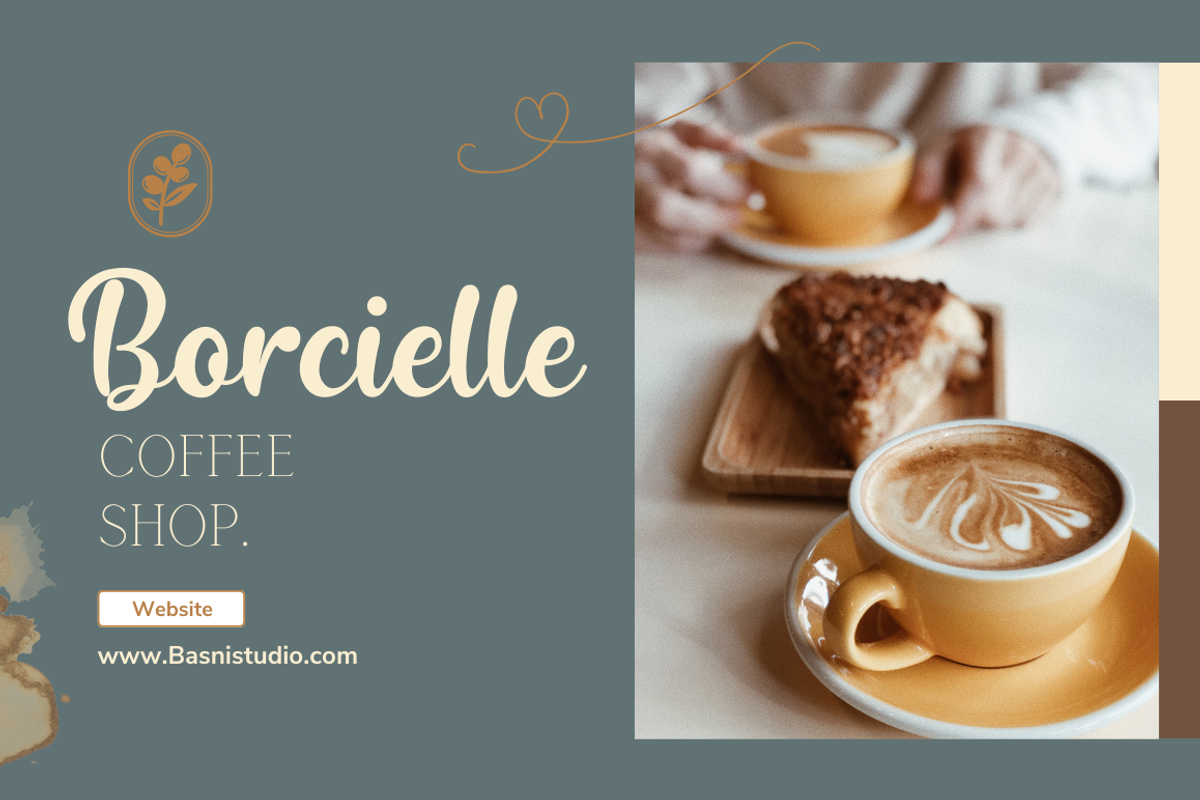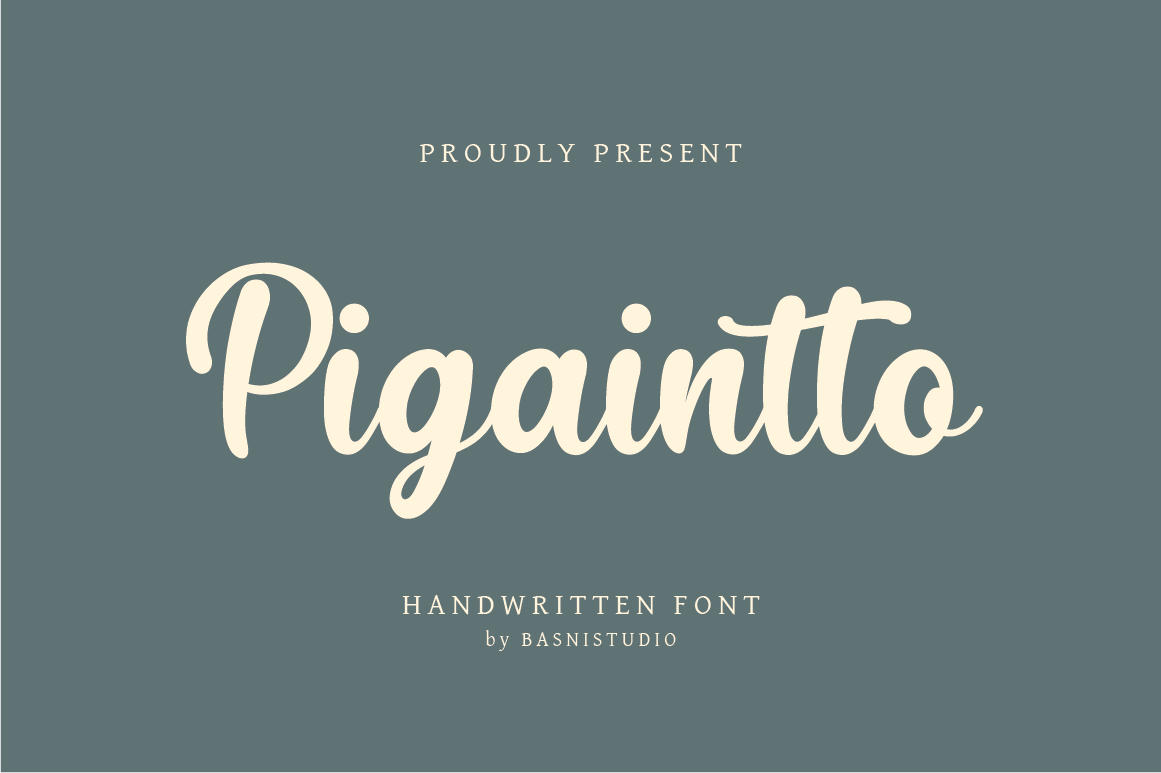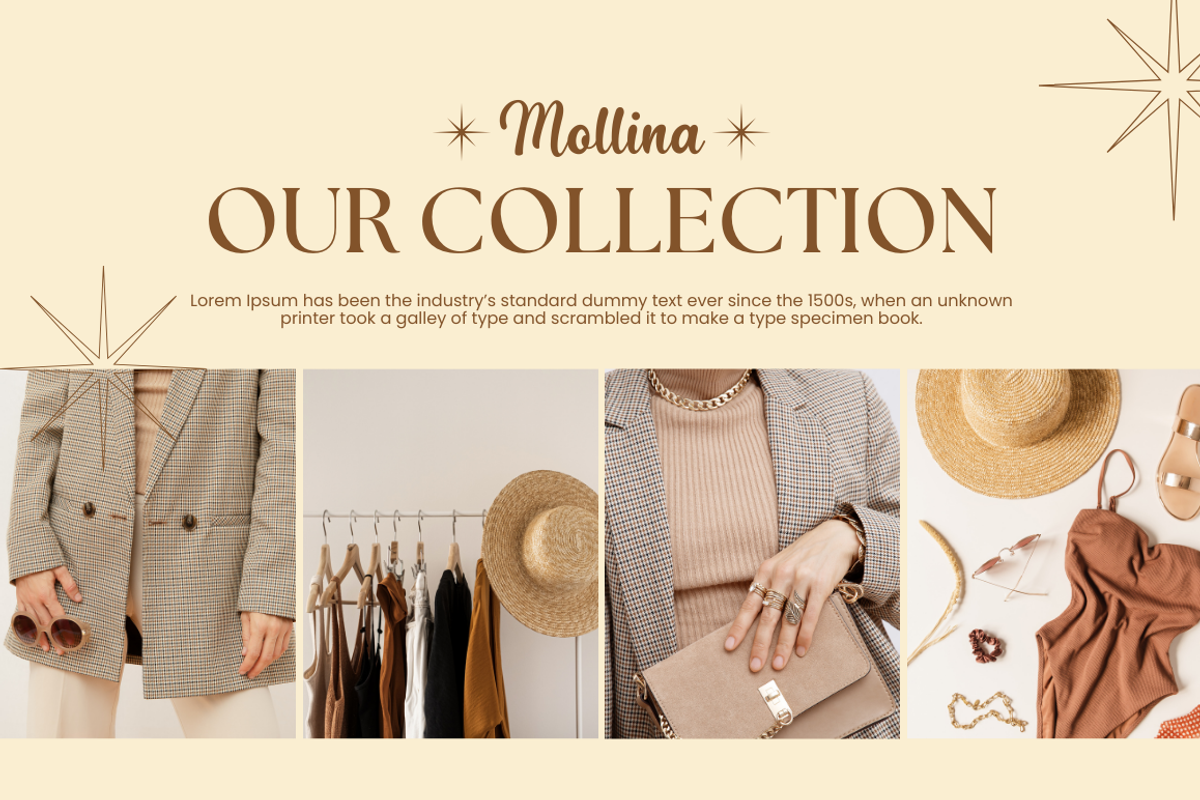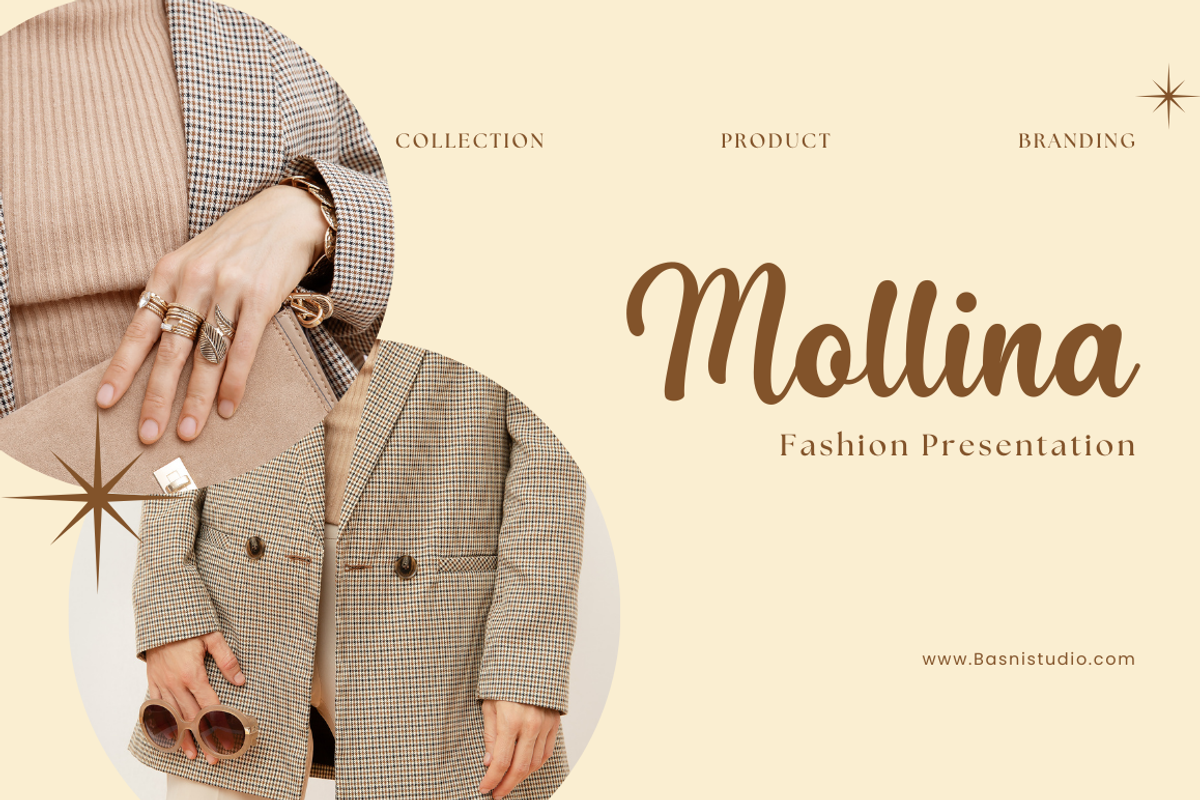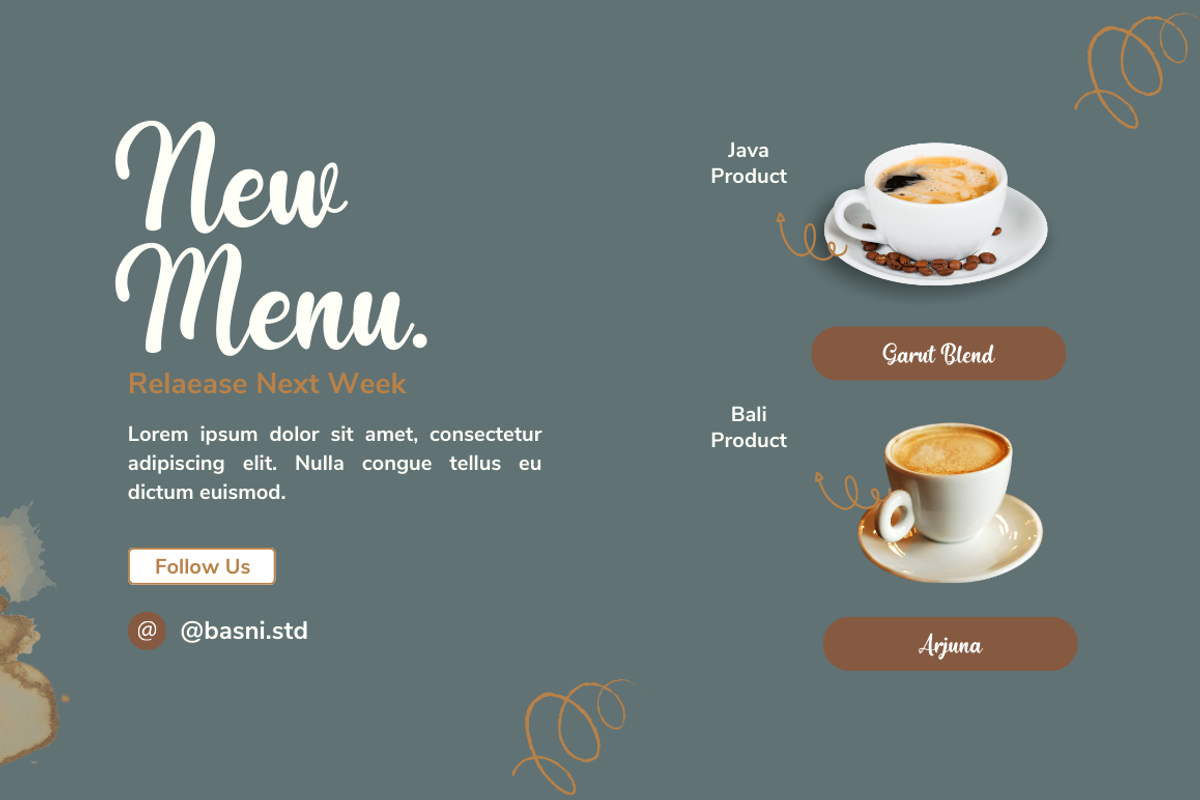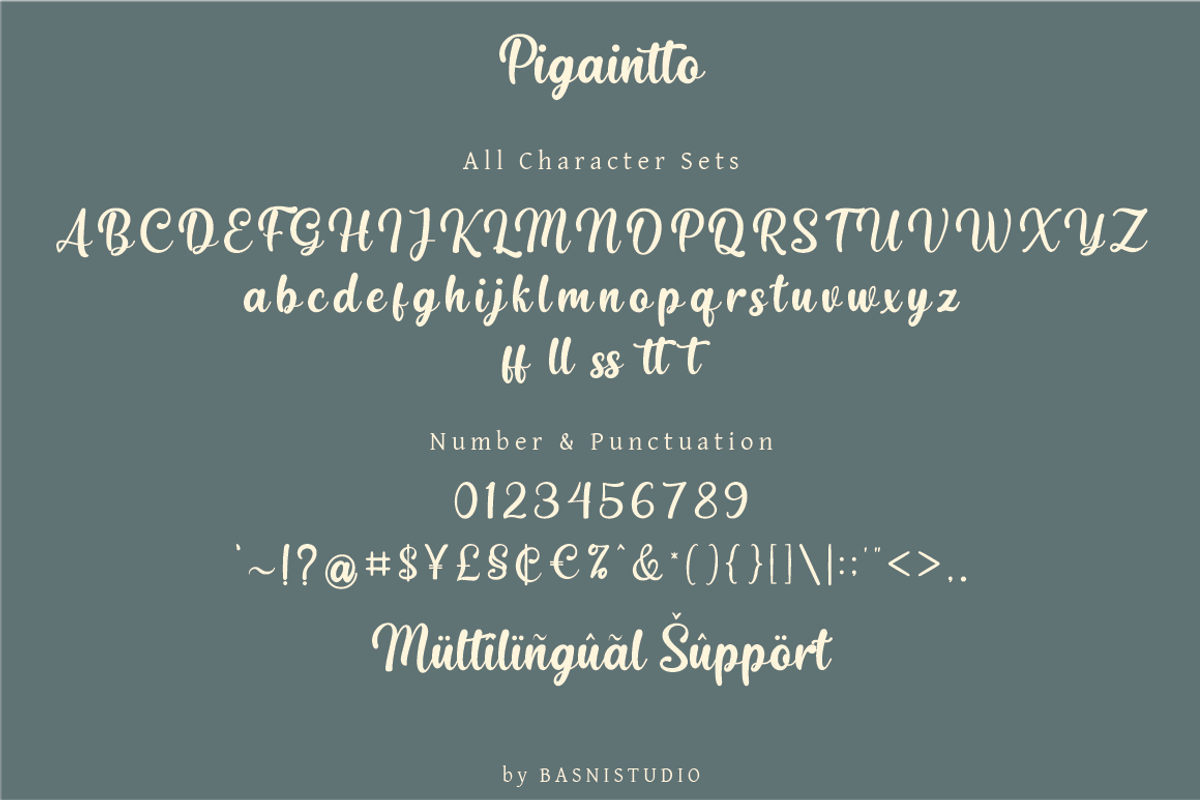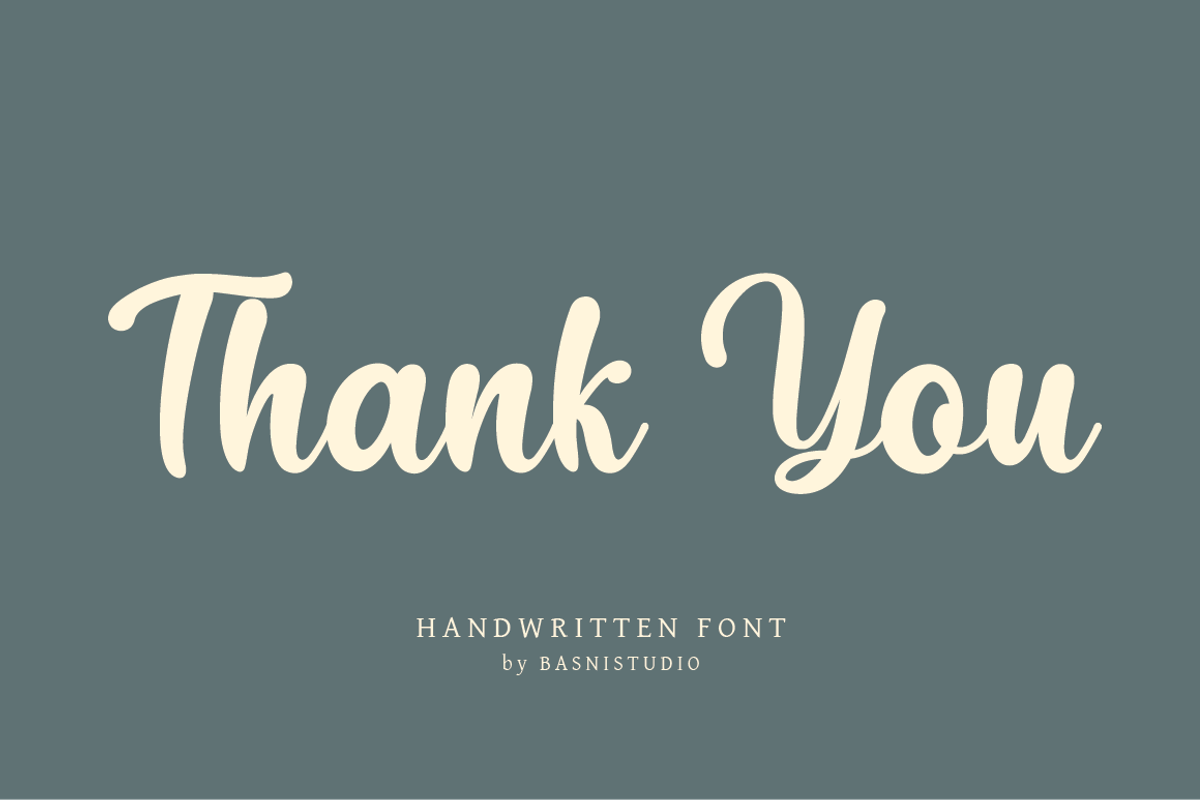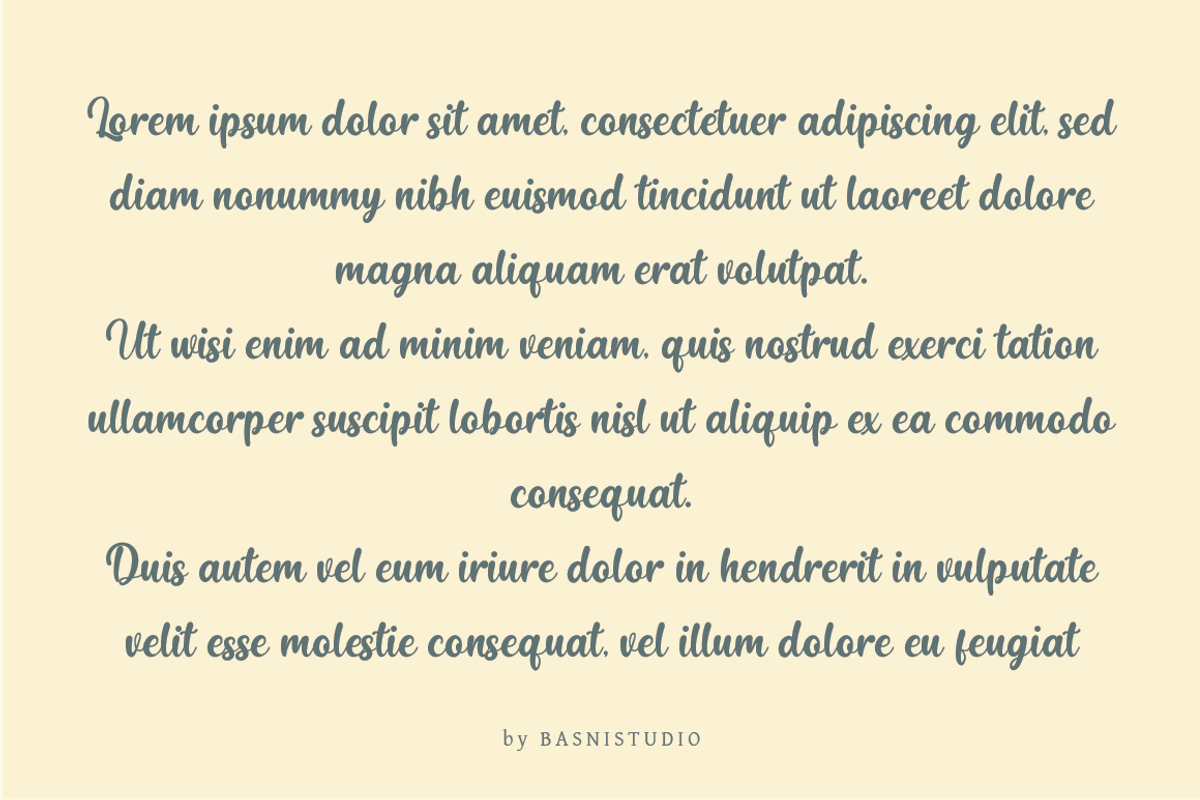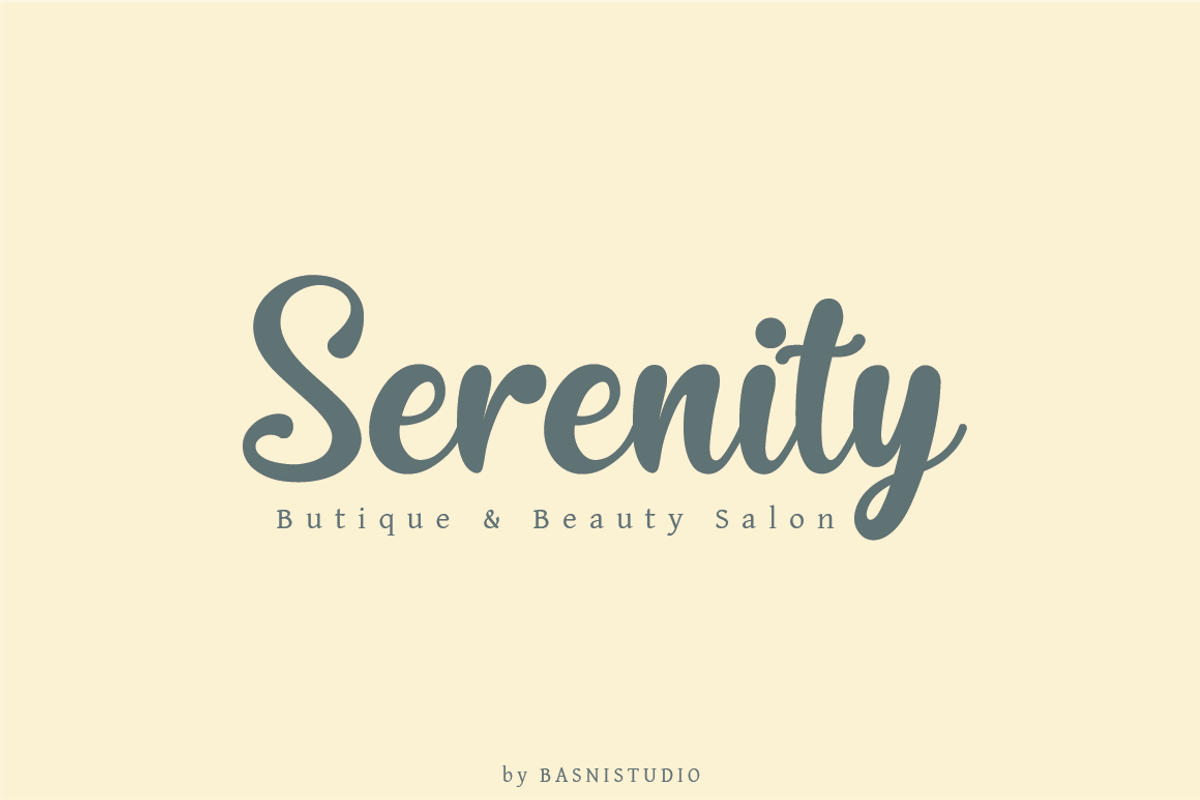
Pigaintto Handwritten Font
Introducing Pigaintto Handwritten Font
Pigaintto Handwritten Font, made with Love, Precision and Stylish, perfect for branding, websites, and editorial designs. Includes all Character letters, multilingual support, punctuation, binding. everything can be easily accessed using software that supports OpenType. What’s include: